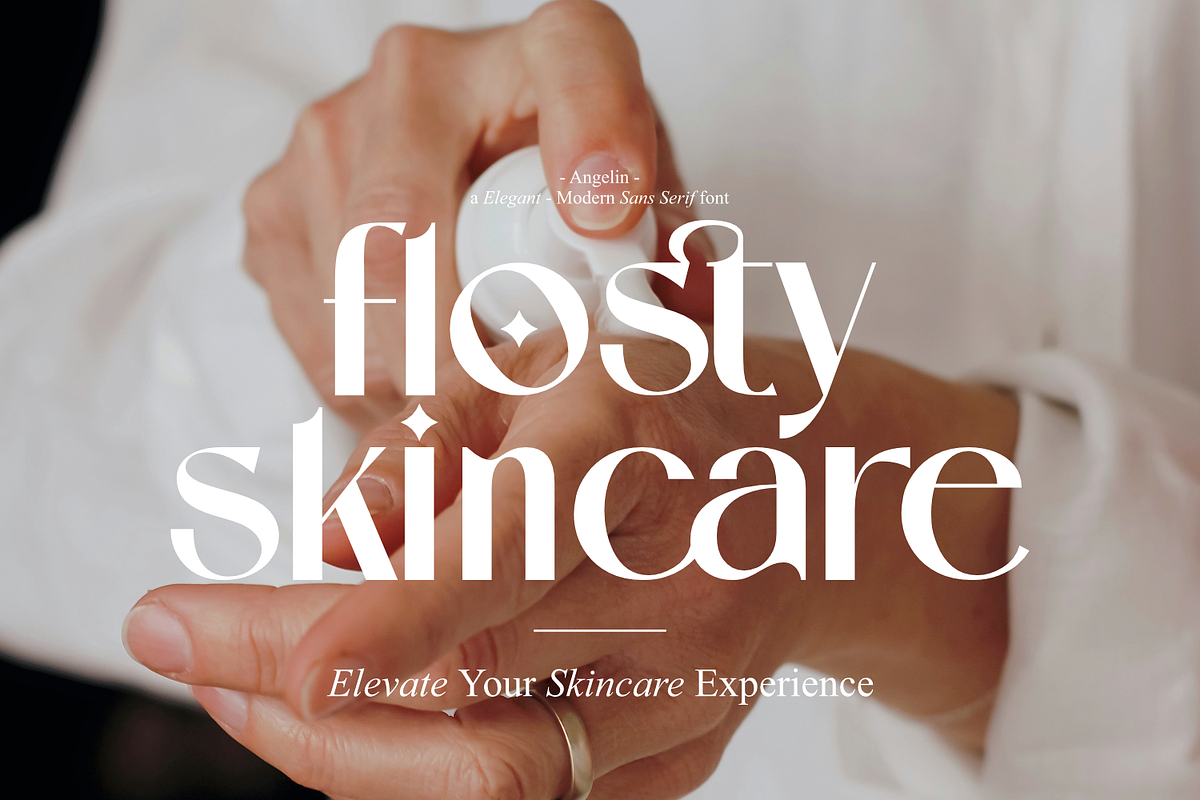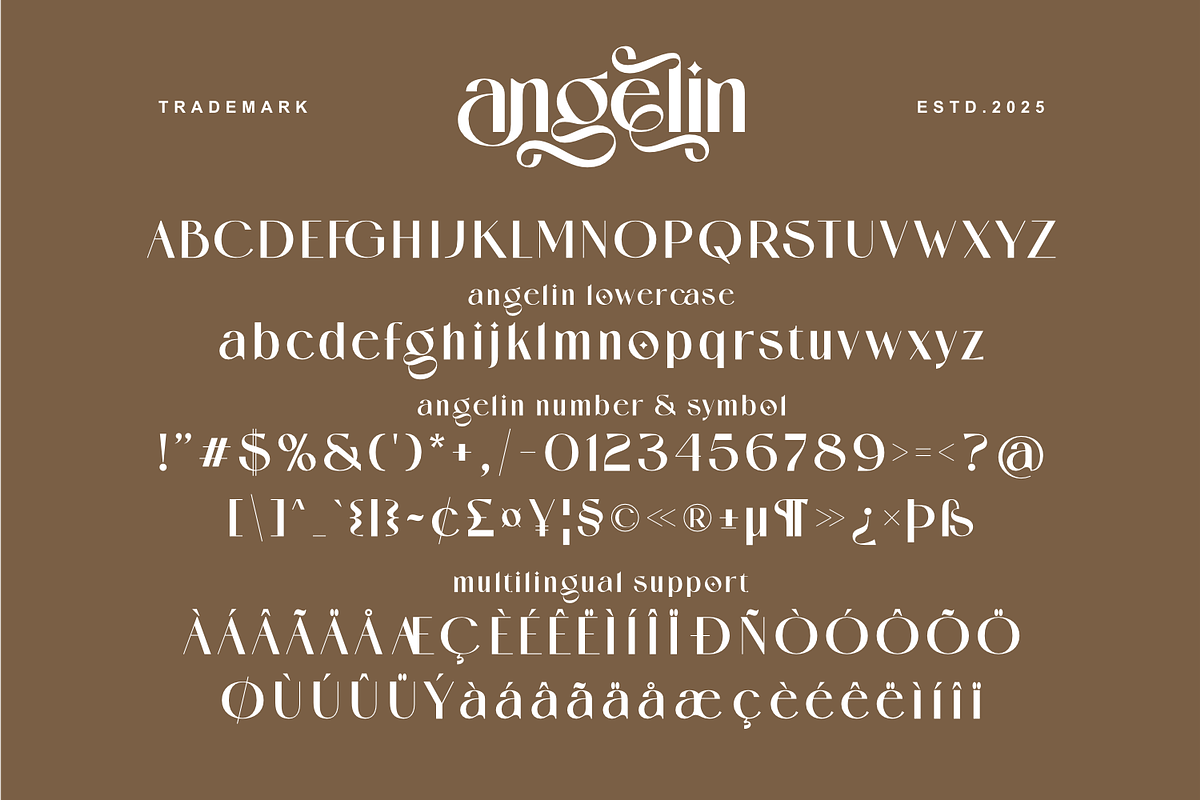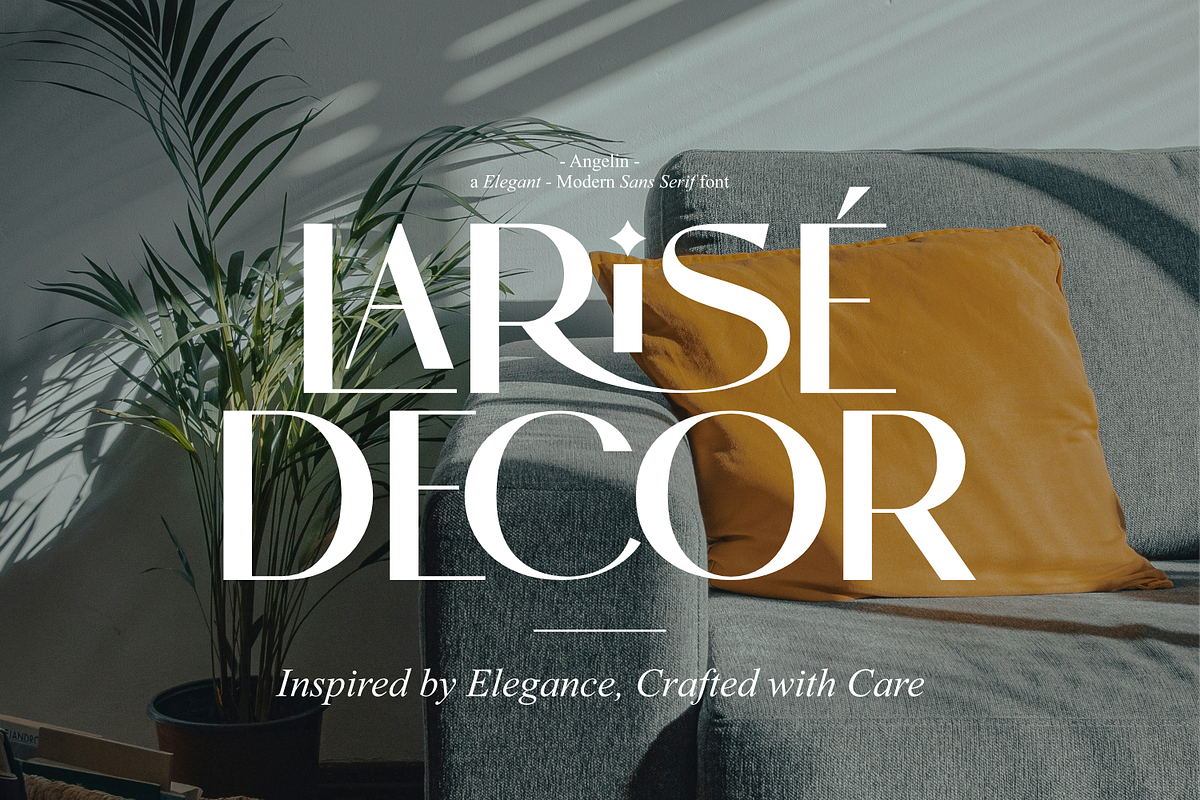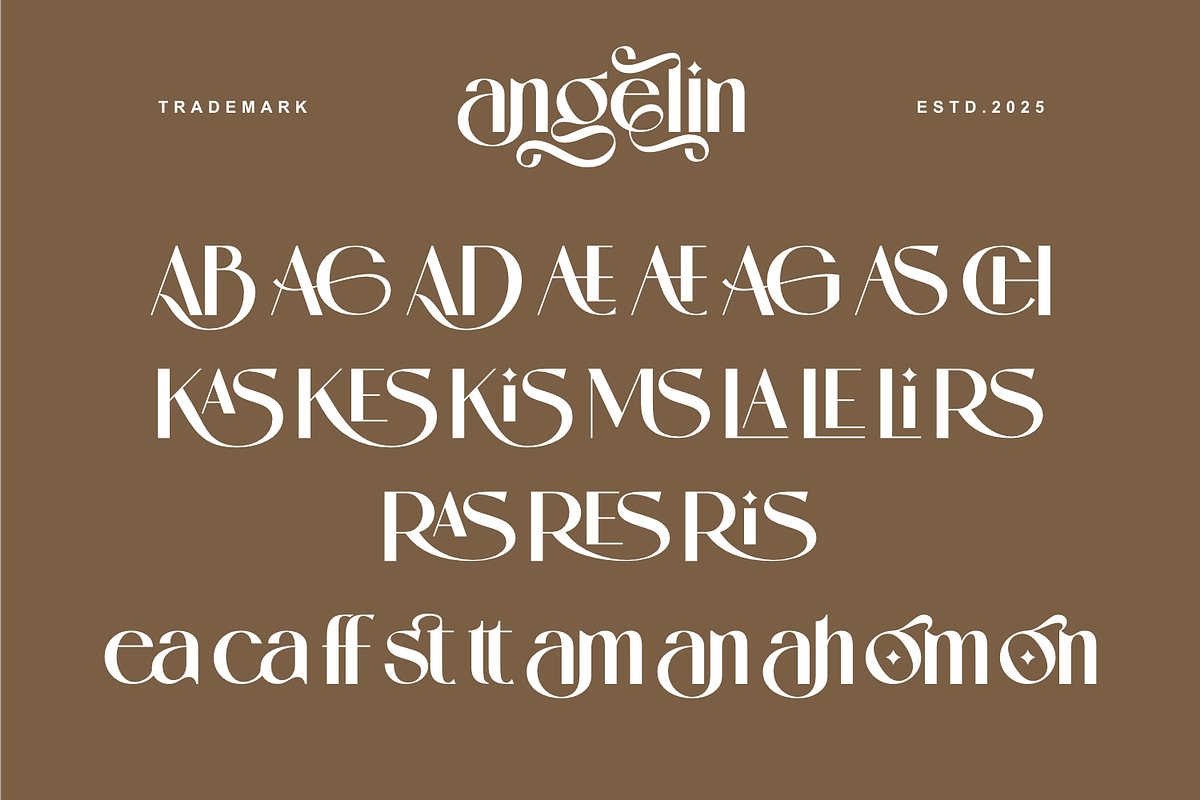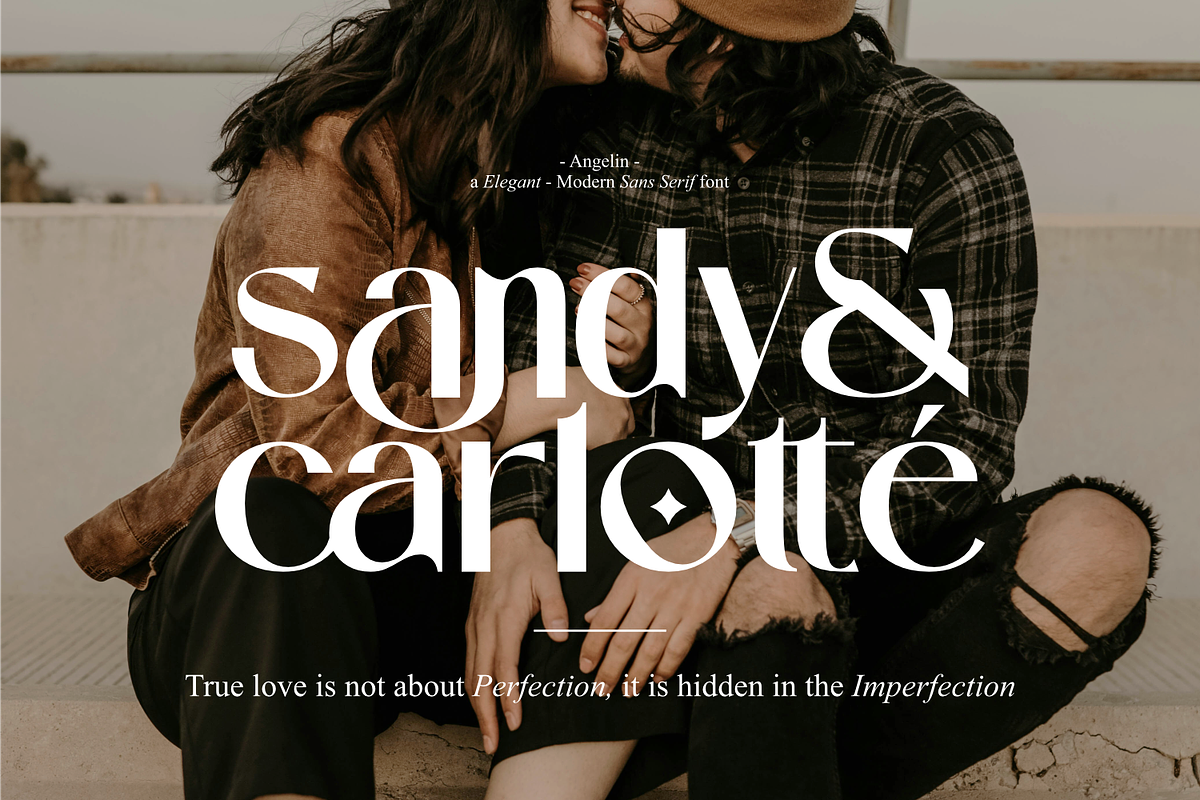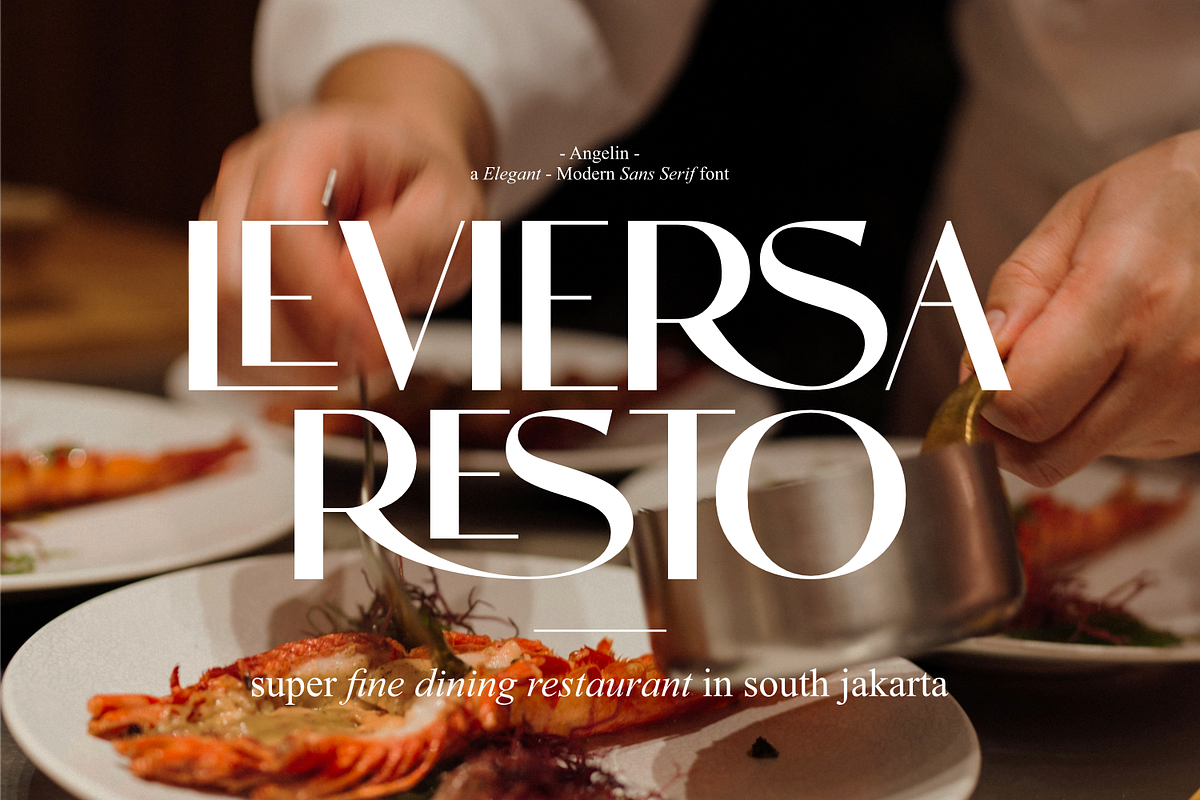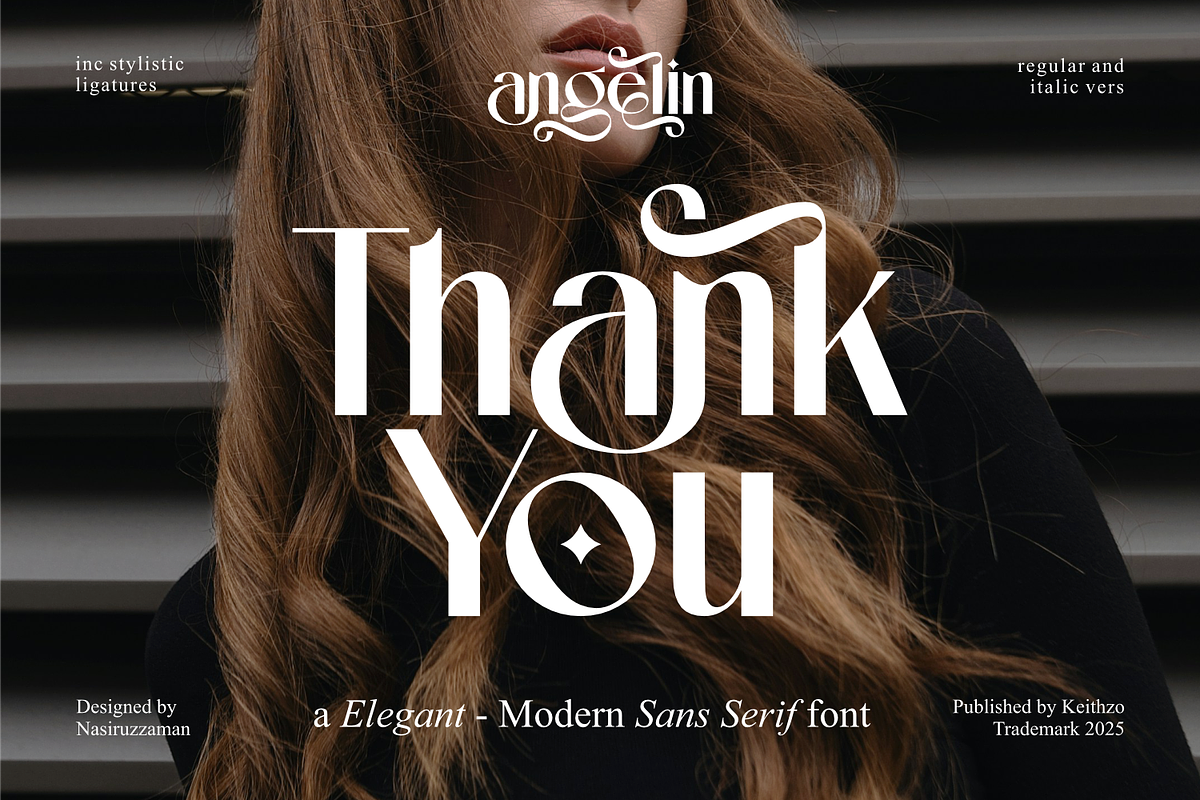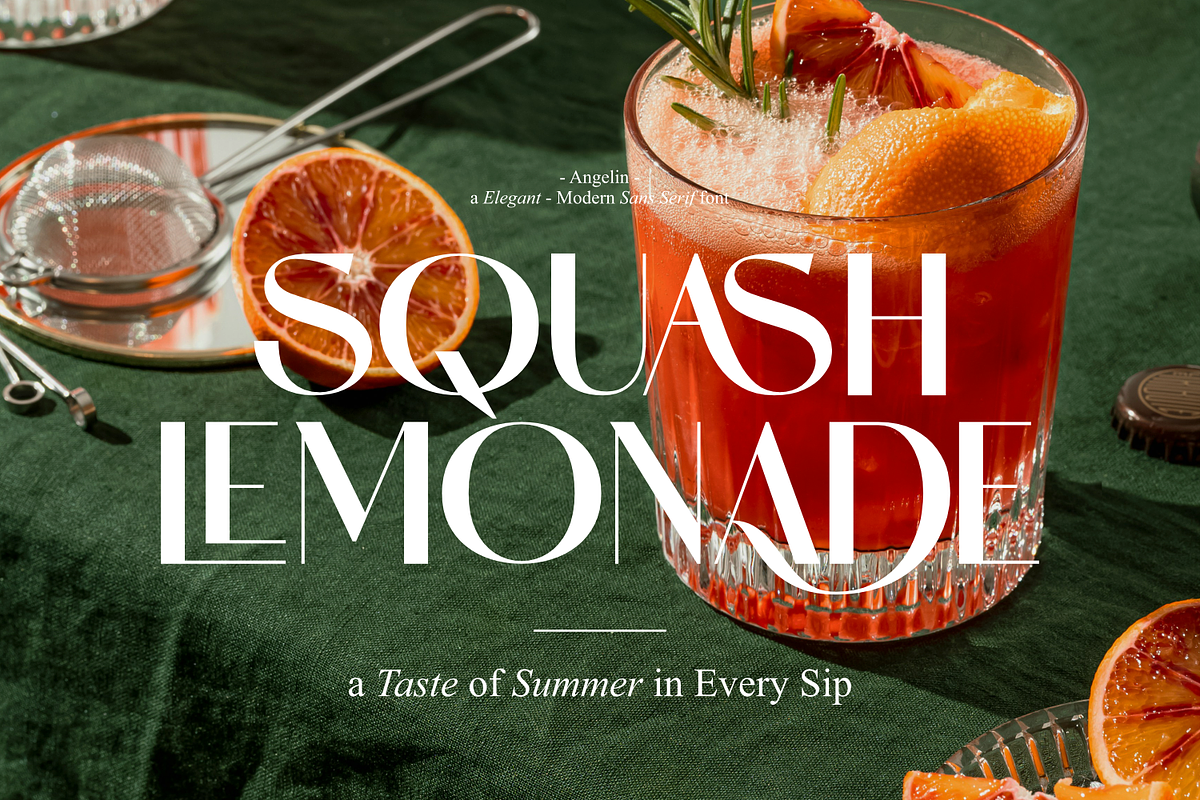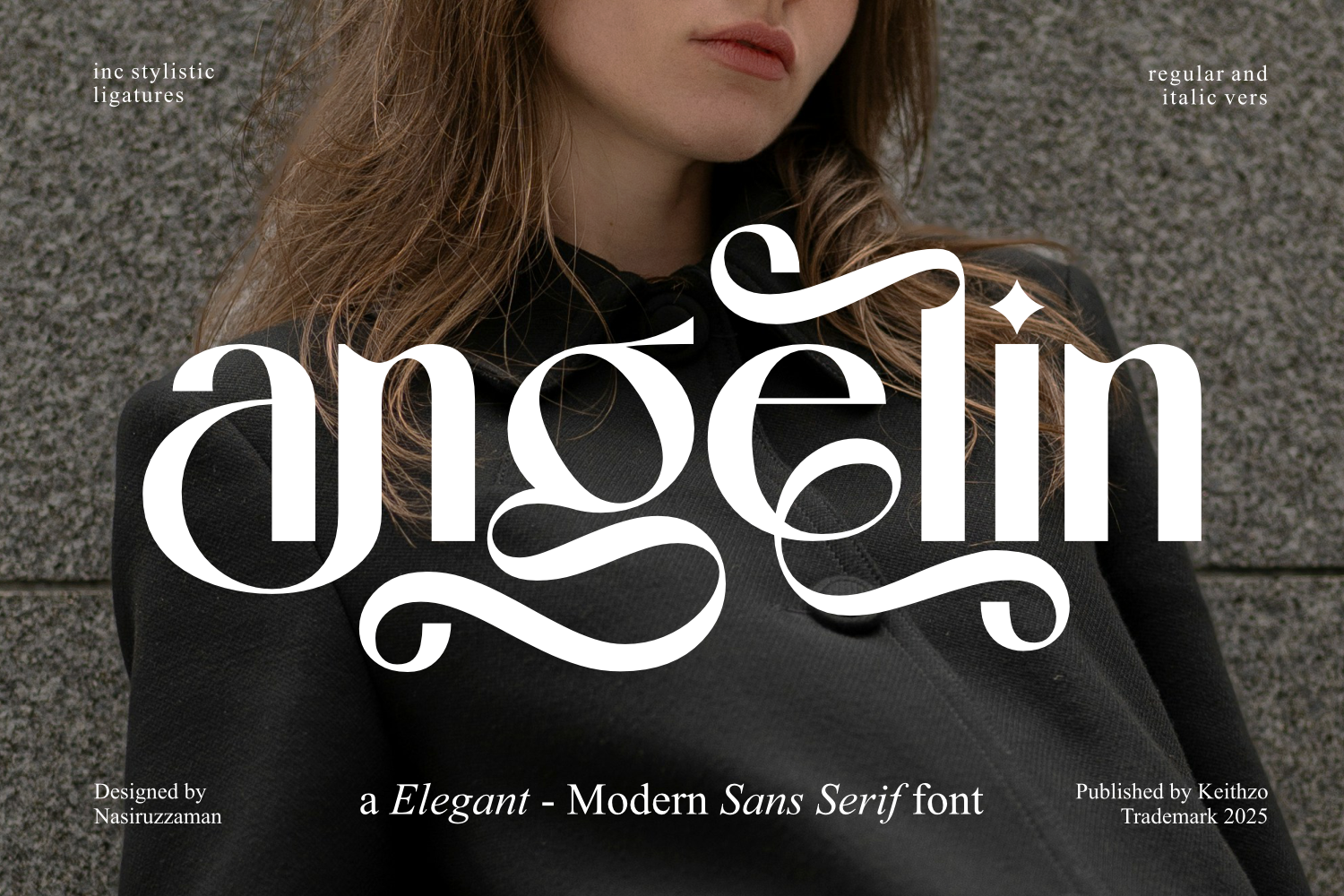
Angelin - Modern Sans Serif Font
Elevate Your Designs with Angelin, a Modern & Elegant Sans Serif font, Unleash the power of sophistication and luxury in your next project with Angelin, a truly exquisite modern sans serif font. Angelin isn’t just a typeface; it’s a statement. Its refined, graceful curves and impeccable balance exude an air of high-end professionalism, making it the perfect choice for designs that demand a touch of class and distinction.
Whether you’re crafting a luxury brand identity, designing an elegant wedding invitation, creating impactful editorial layouts, or developing a sleek website, Angelin will elevate your work to new heights. Its versatility shines across a multitude of applications, ensuring your message is delivered with unparalleled style and clarity.